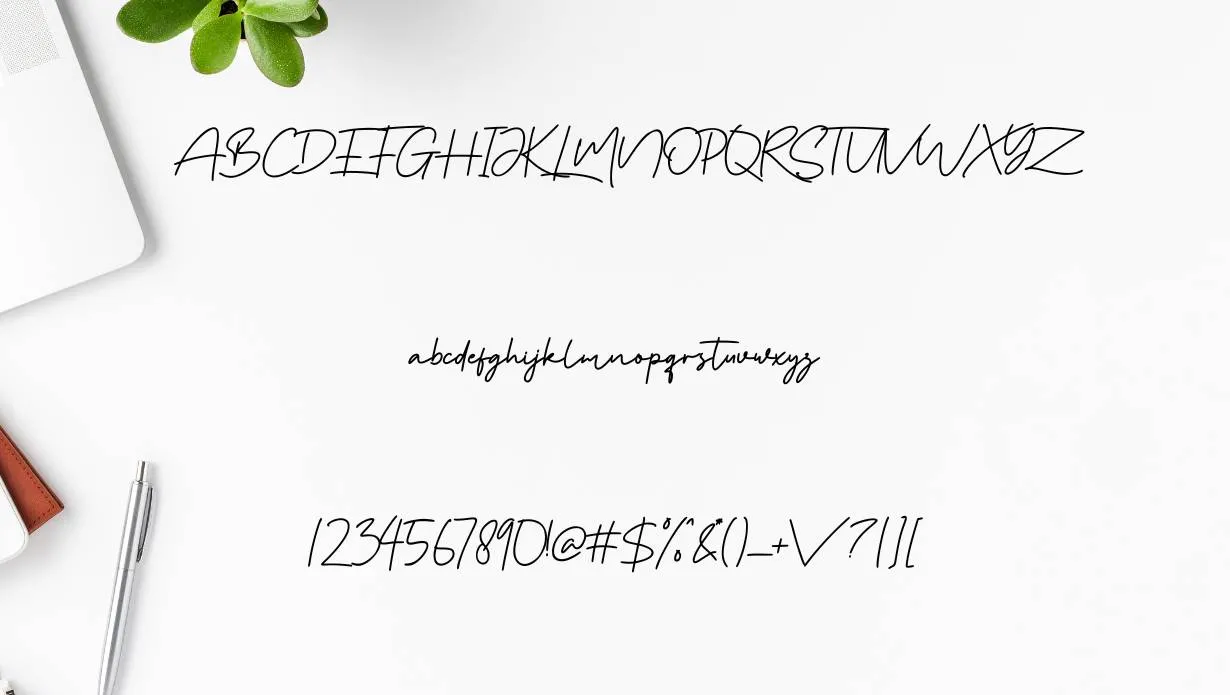
Tanya Hati Font adds a touch of grace and warmth to your designs with its elegant and flowing letterforms. Perfect for projects that require a sense of sophistication, such as wedding invitations or high-end branding materials. The font’s seamless curves and delicate details create a harmonious visual experience.
| Name | Tanya Hati Font |
| Designer | StringLabs Creative Studio |